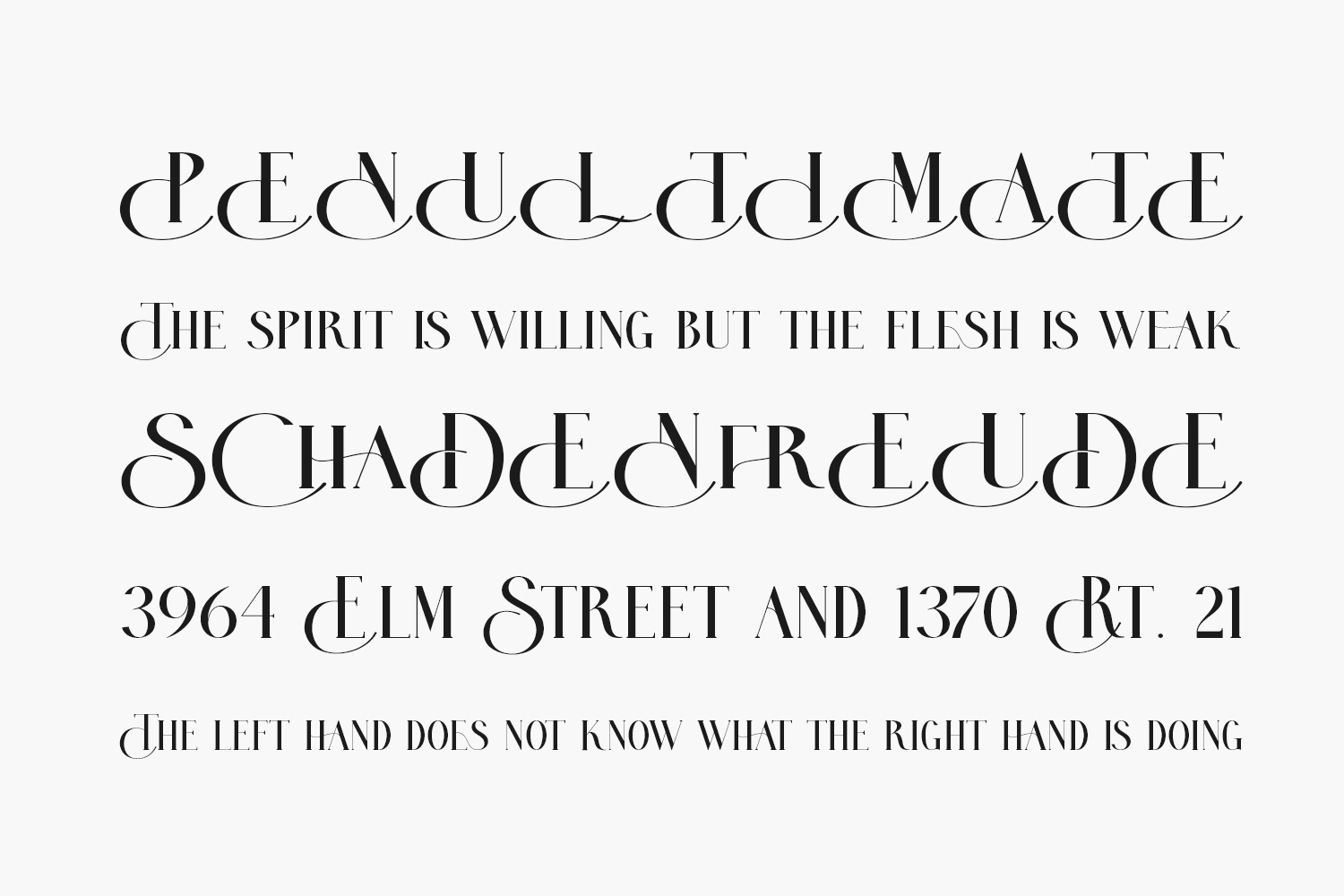
Activists Free Font is a tall and classic styled serif font. Activists Free Font is free for personal use only. Please purchase the full version for commercial use.